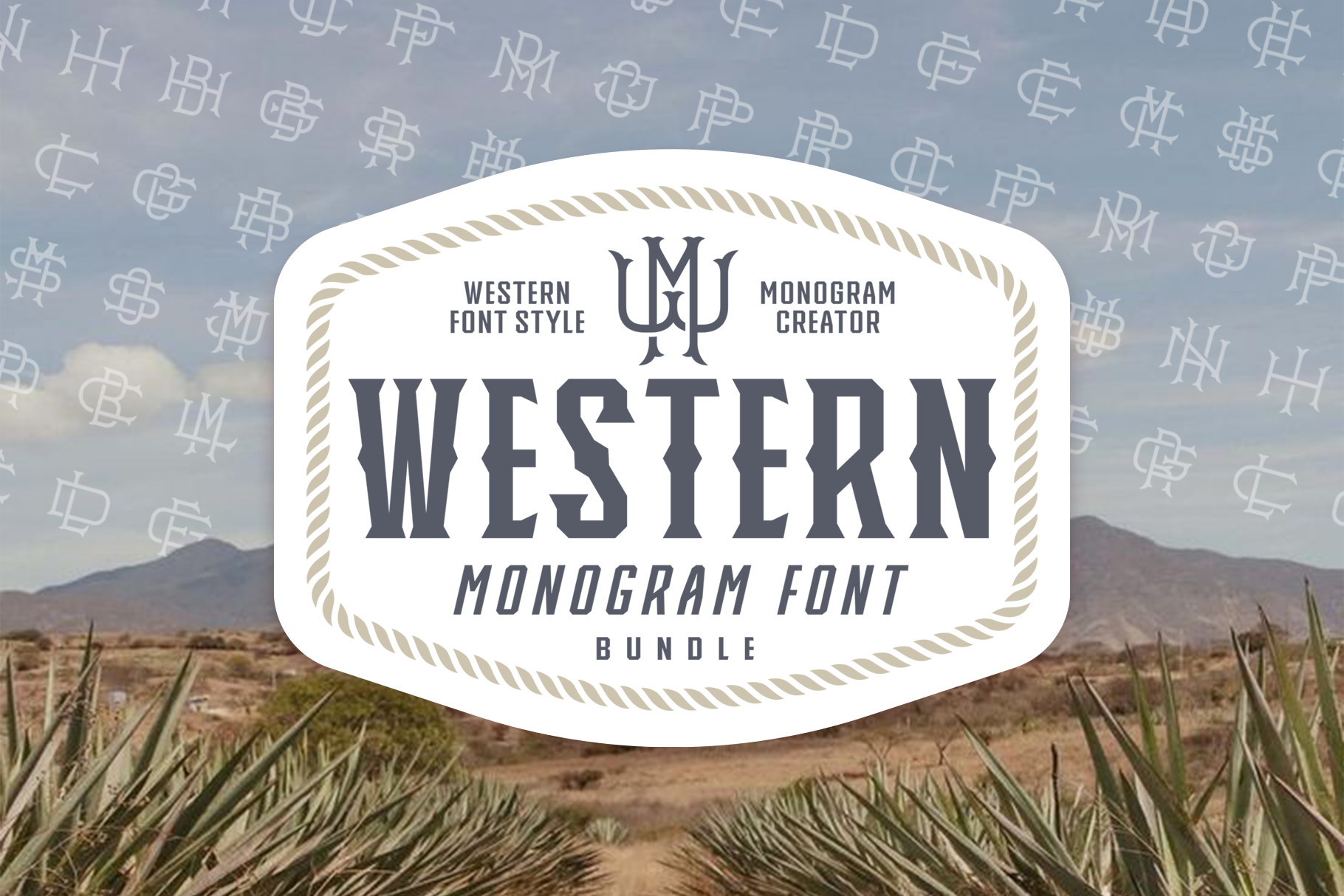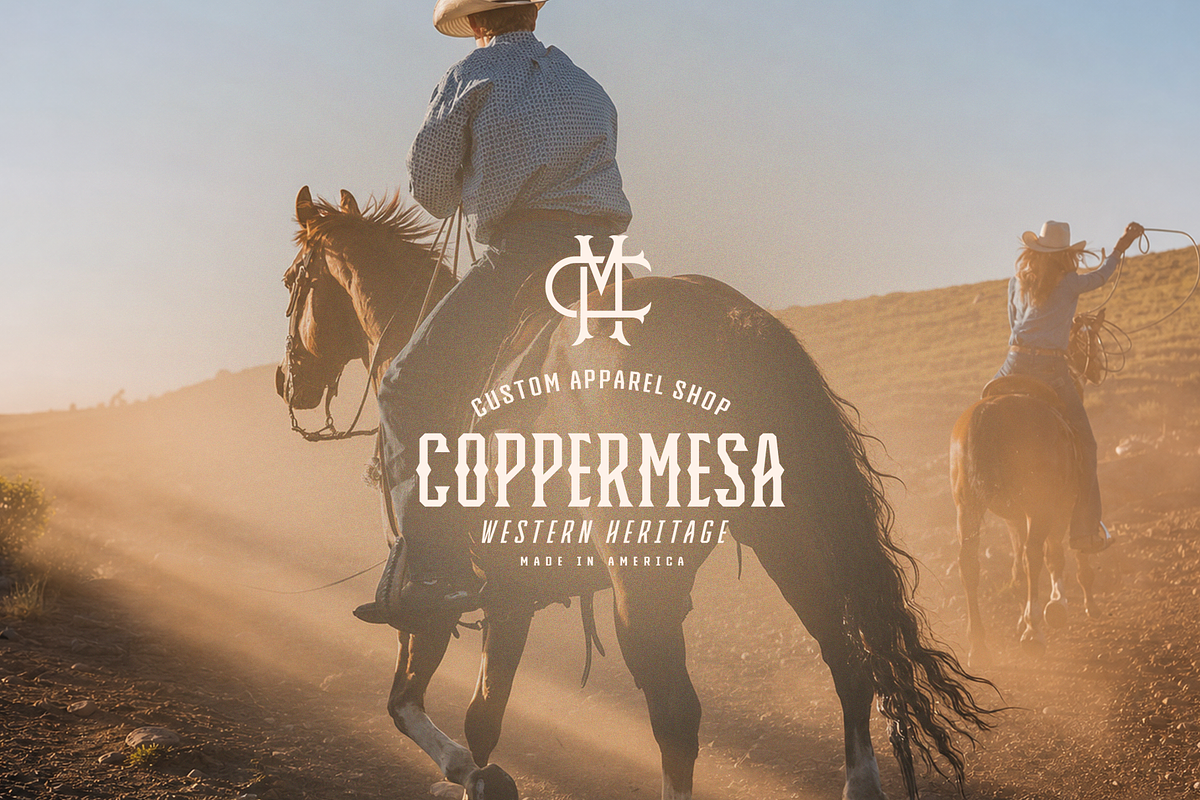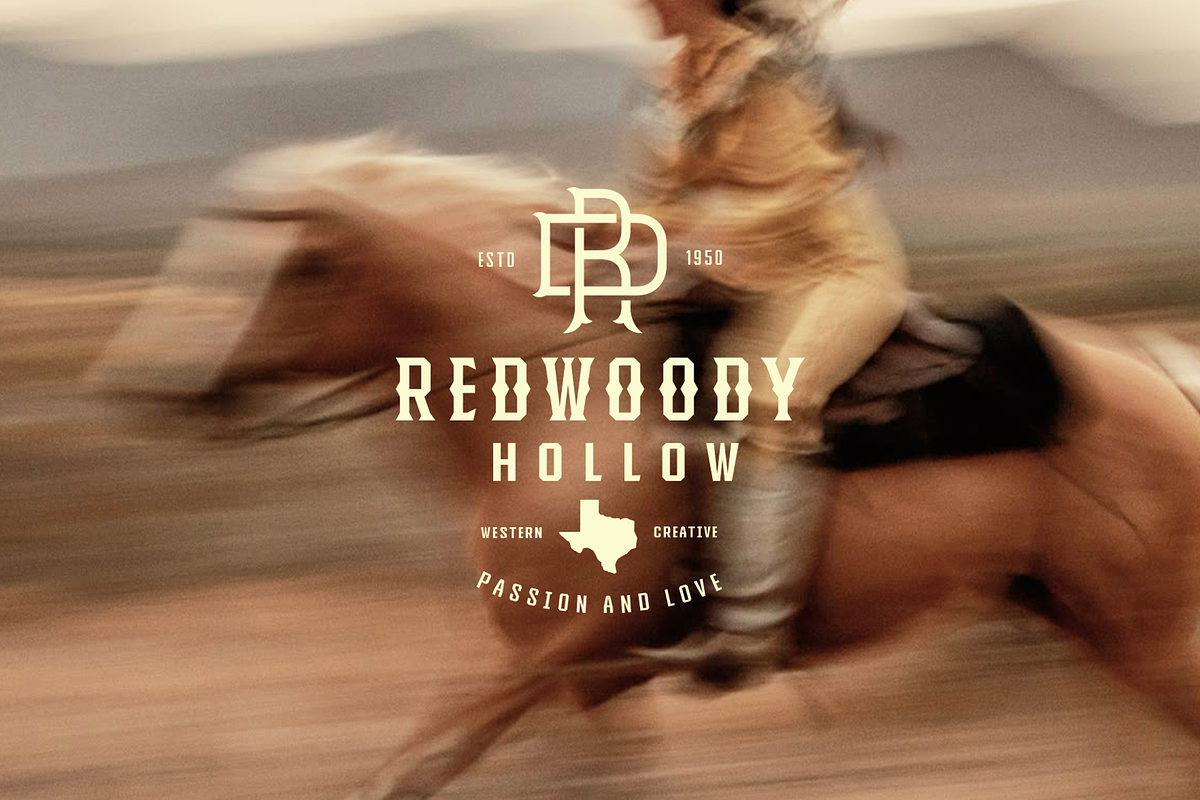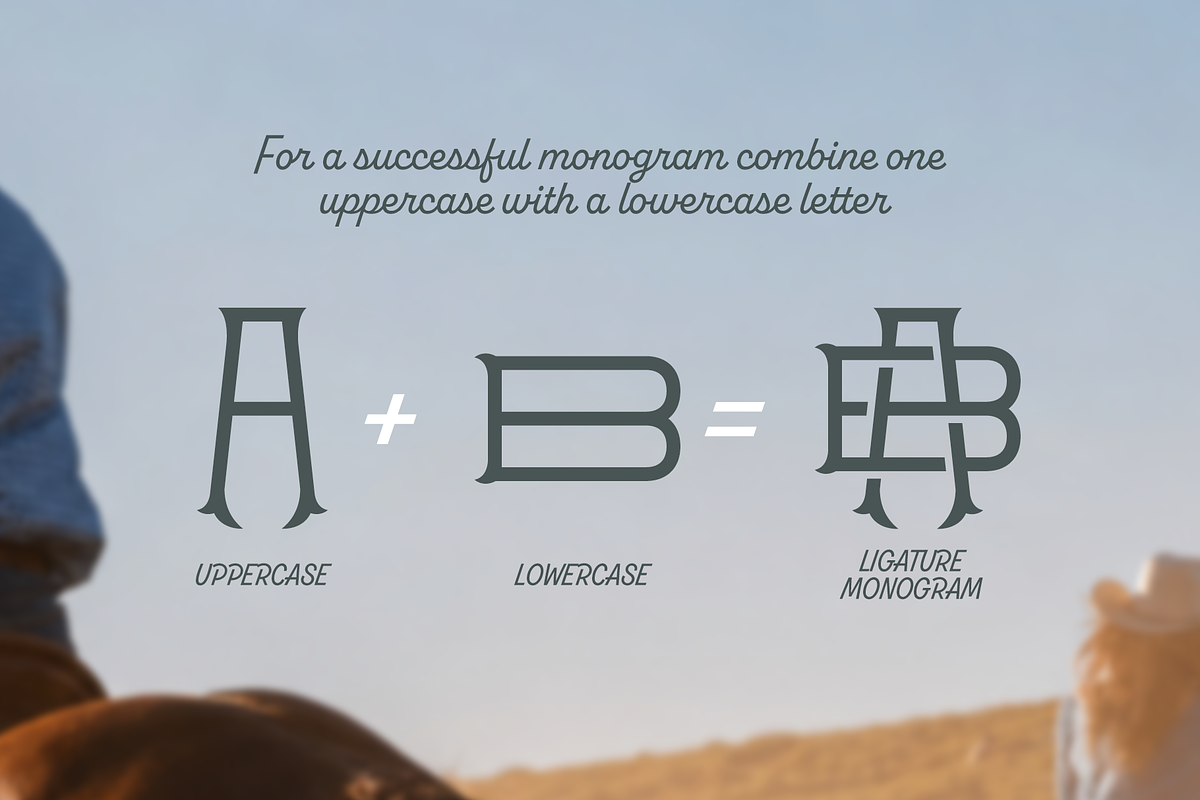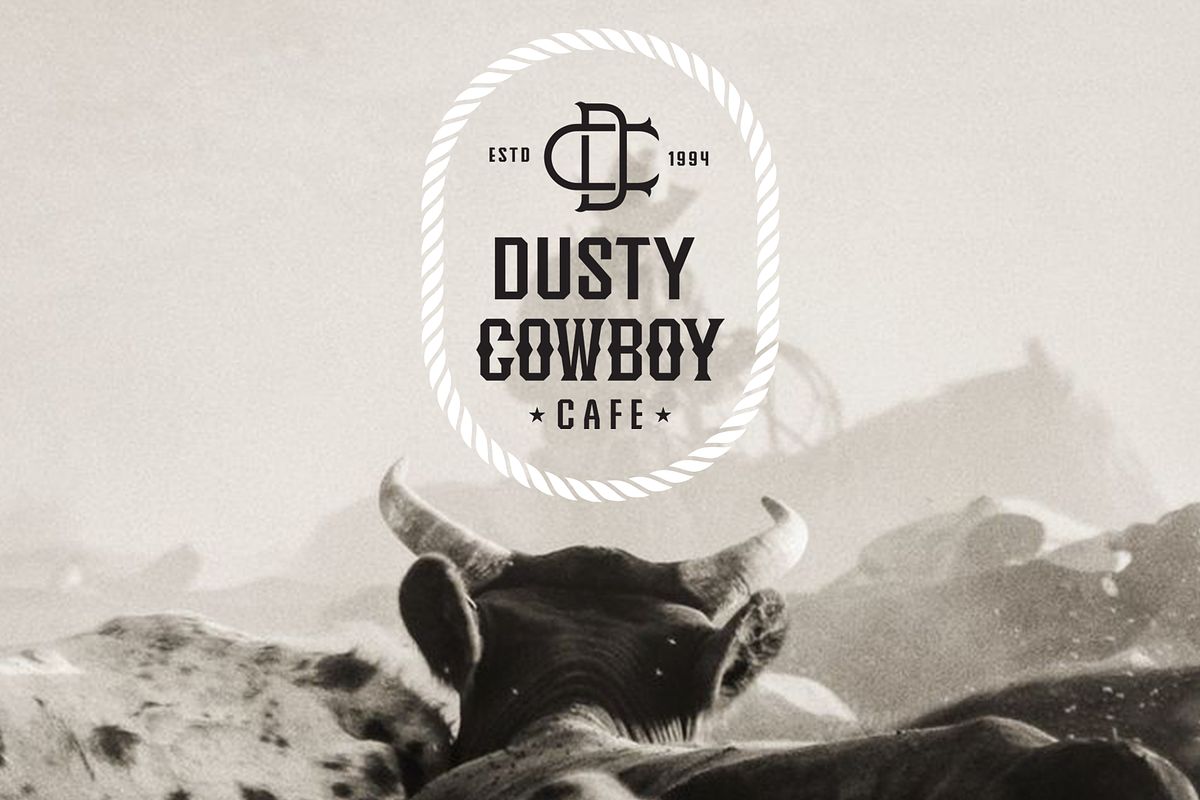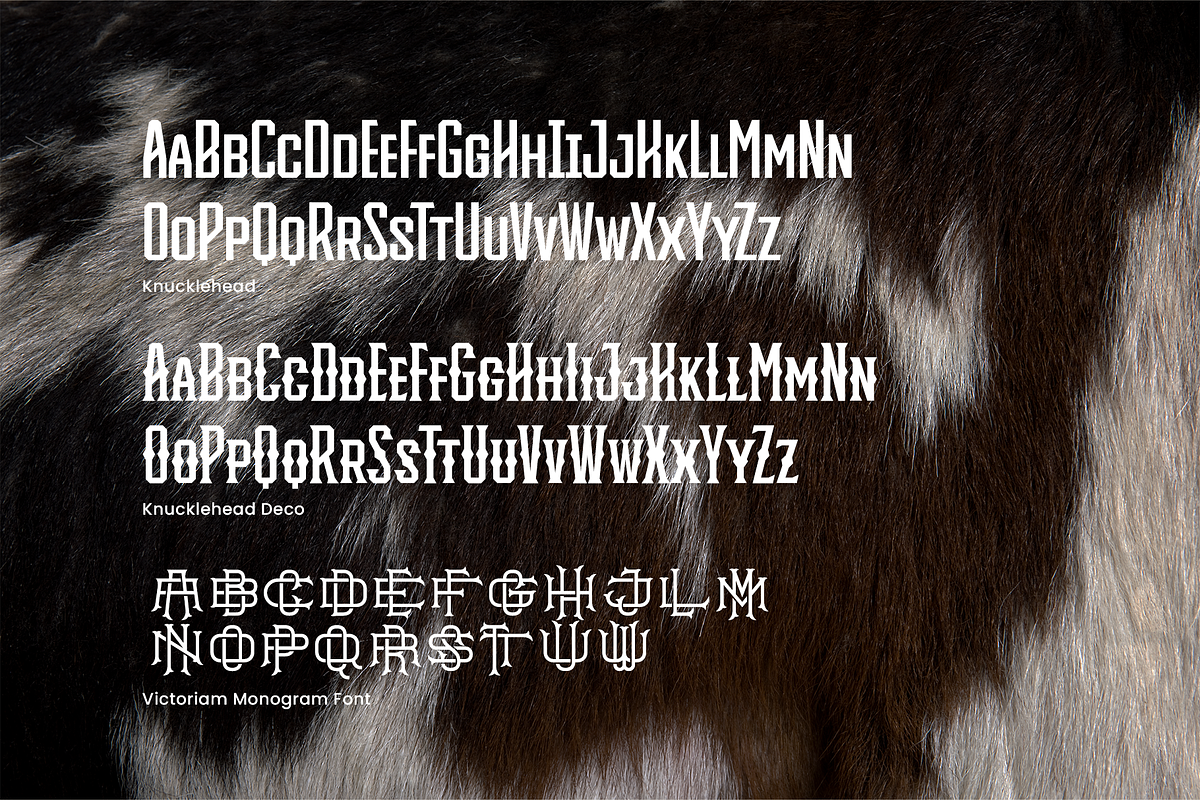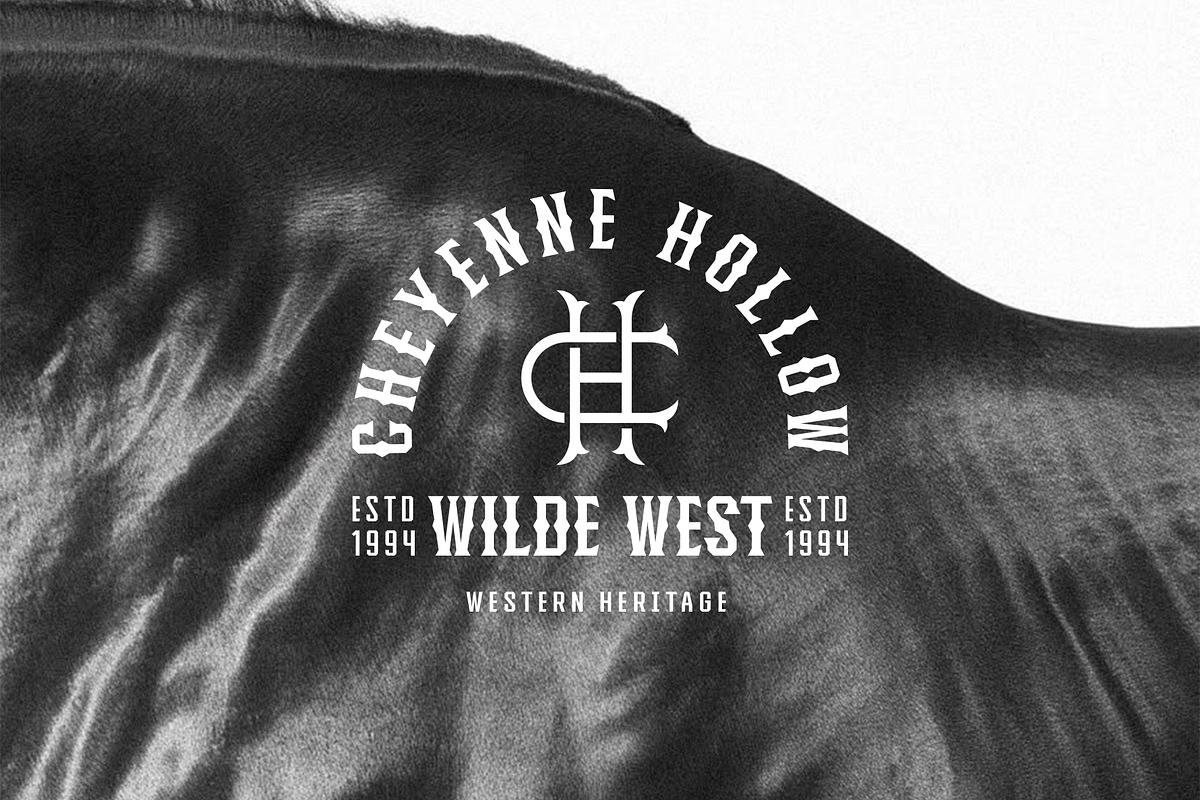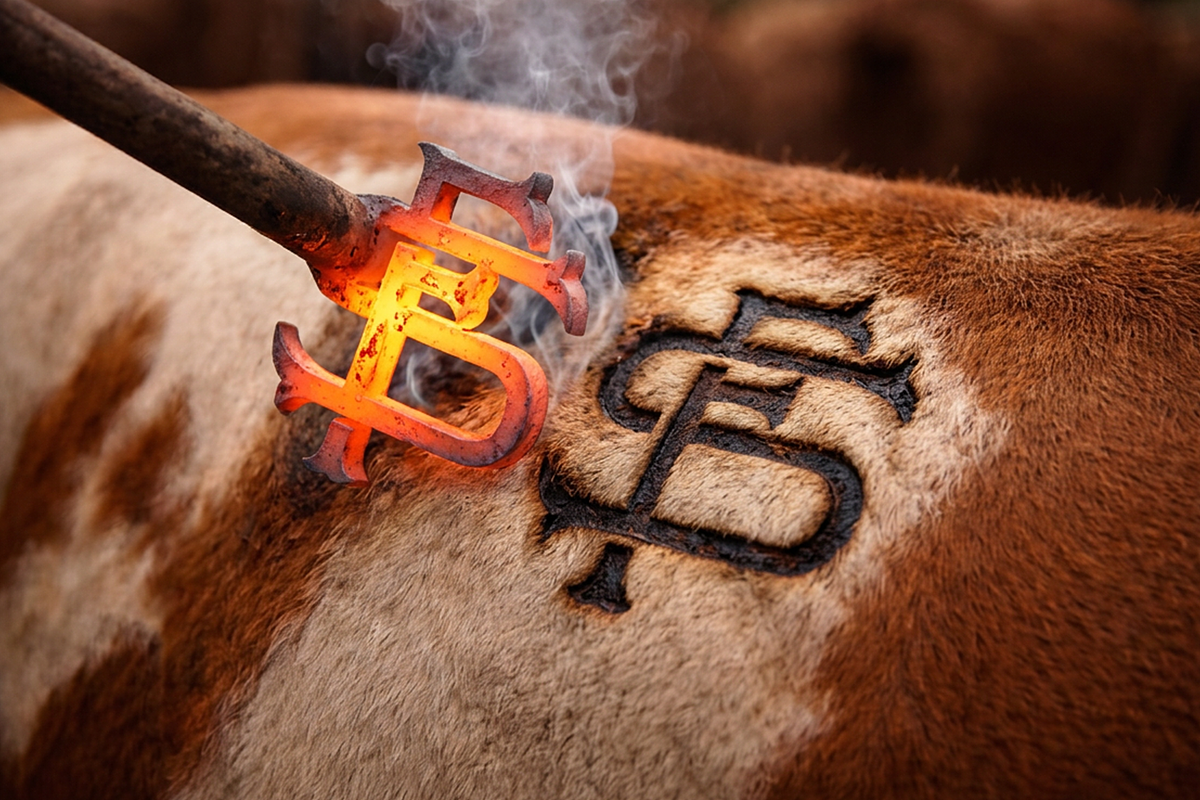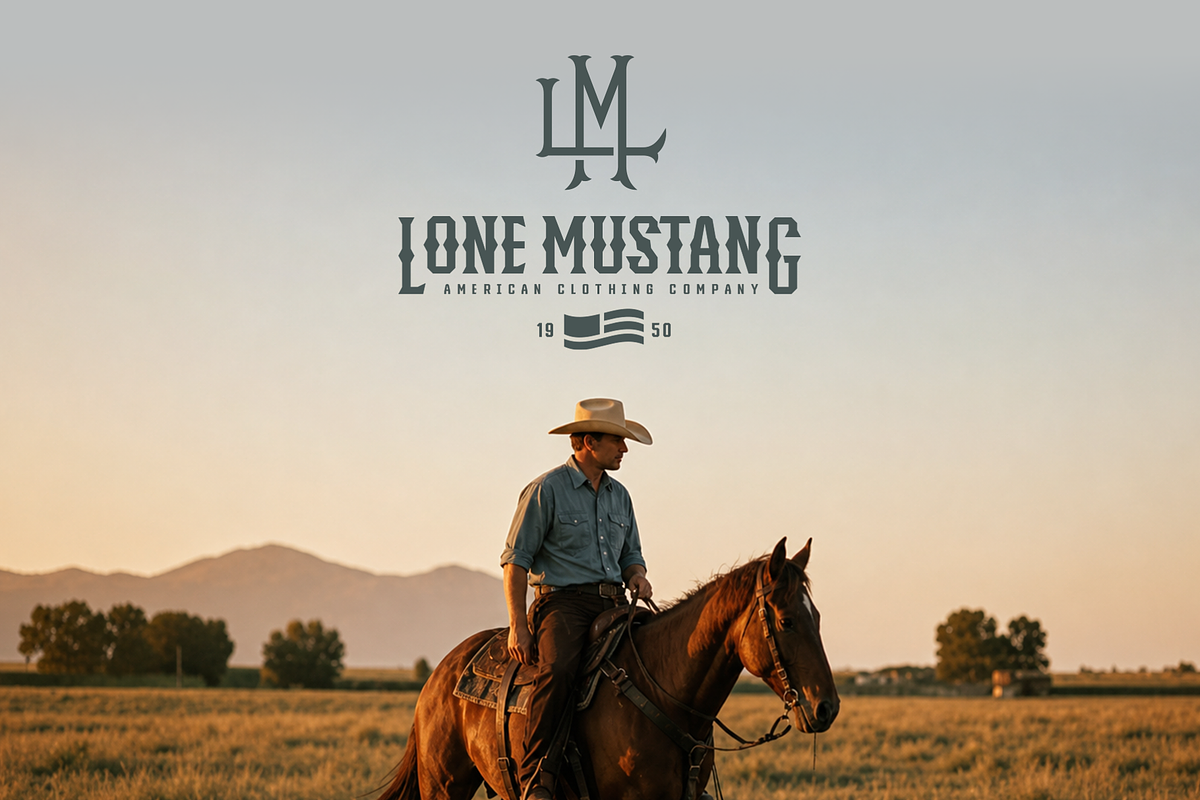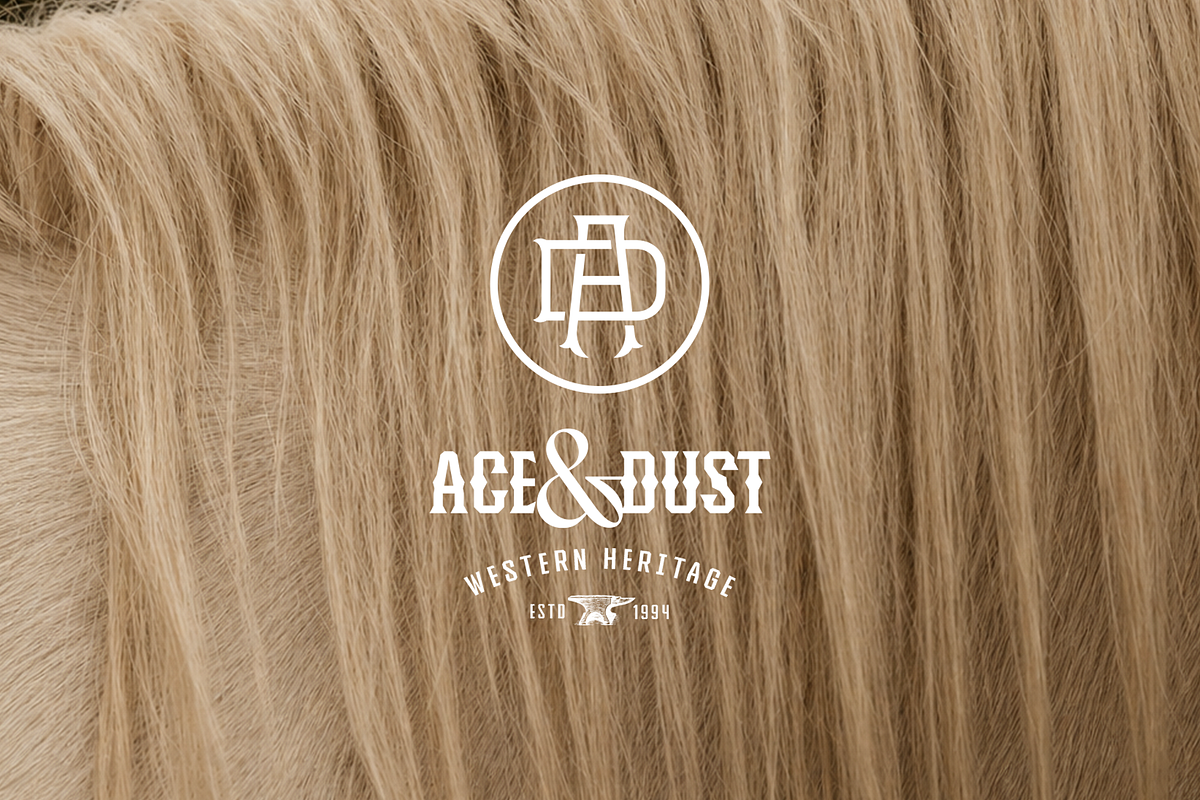
Western Monogram Font Bundle
Give your western-style designs an authentic, hand-crafted look with the Western Monogram Font Bundle: three fonts built for ranch, farm, cowboy, saloon, and Americana-inspired branding.
This bundle includes a monogram font, a sans serif font, and a deco font, giving you everything you need to build a complete western identity, from logo to packaging to social media graphics.
Monogram Font
Type one uppercase and one lowercase letter, and the font automatically forms a ligature: a ready-made monogram. With over 350 letter combinations built in, you can create custom monograms in seconds, no manual design work required. Perfect for logos, stamps, badges, cattle brands, wax seals, and product labels.
Note: if a combination doesn't display correctly, try switching the letter order (for example, if "Ab" doesn't work, try "Ba"). A few combinations, mainly repeated letters like II, ZZ, or YY, could not be covered as monograms.
Ranch and farm logos, western-themed cafes and restaurants, cattle and livestock brands, Texas-style boutiques and craft shops, country events and rodeos, equestrian brands, saloon and bar signage, farmhouse decor, leather goods, and rustic wedding invitations.
- Monogram font, 350+ monogram letter combinations https://creativemarket.com/Headfonts/7815596-Victorian-Monogram-Creator-Font
- Knucklehead font sans serif https://creativemarket.com/Headfonts/953261-Knucklehead-Font-Family
- Knucklehead font deco https://creativemarket.com/Headfonts/953261-Knucklehead-Font-Family